With Ramadan just around the corner, it’s the perfect time to add a festive touch to your designs. Whether you’re creating social media posts, invitations, posters, or advertisements, using the right fonts can make a huge difference in capturing the essence of the season.
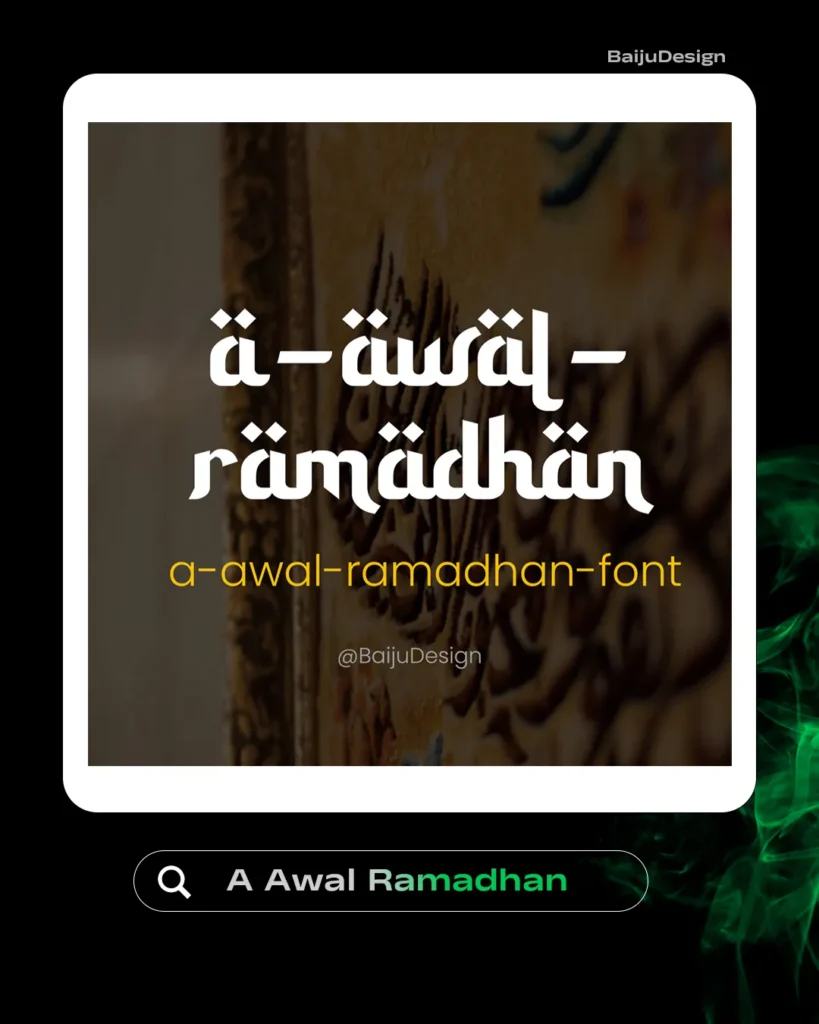
- To help you bring elegance and spirituality to your designs, we’ve curated a list of the TOP 5 Ramadan-themed fonts that perfectly blend tradition and modernity. These fonts are inspired by Arabic calligraphy and festive elements, making them ideal for designing creative and meaningful Ramadan content.
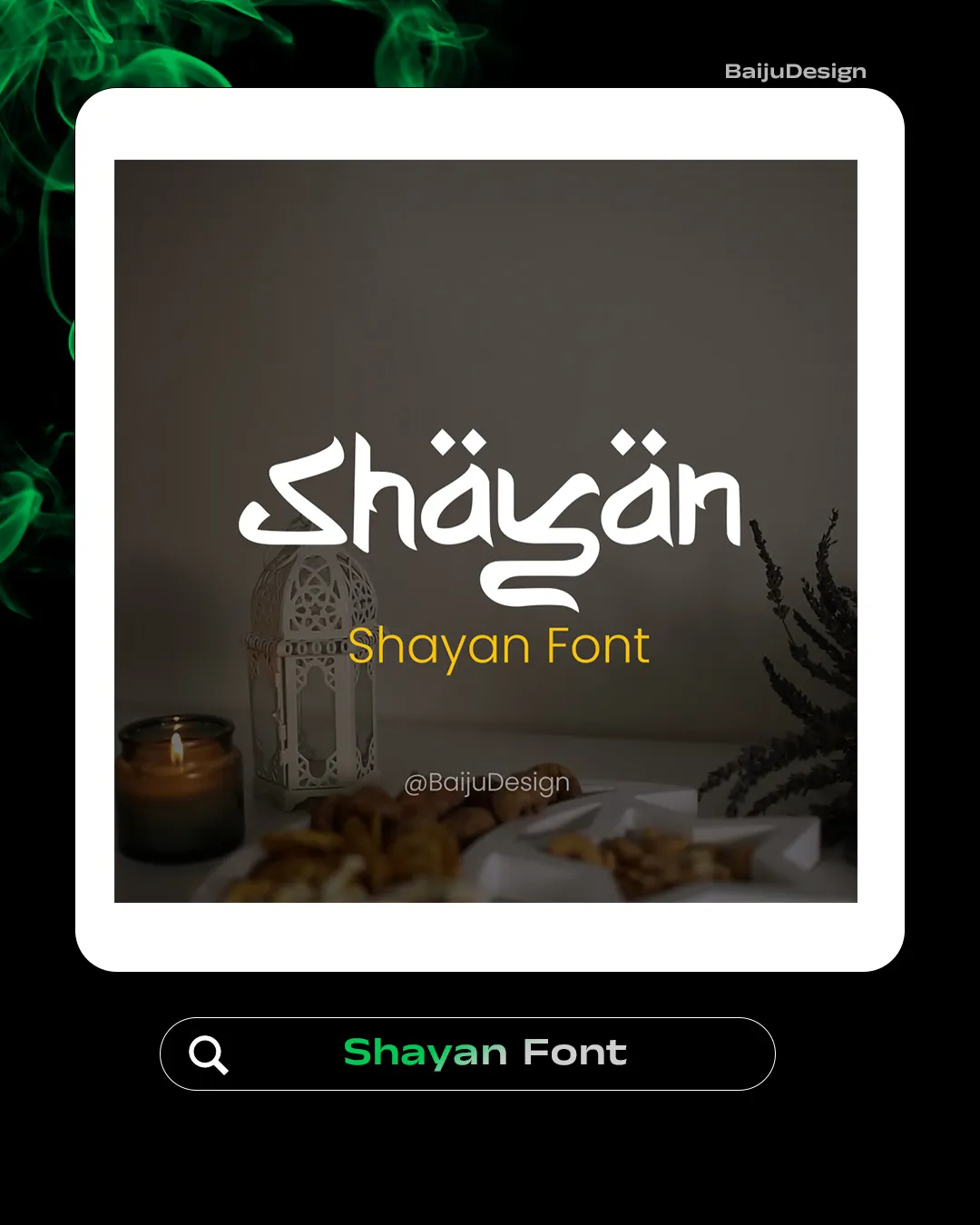
From elegant script styles to bold and decorative lettering, these fonts will help you create visually stunning graphics that reflect the beauty of the holy month. Whether you’re a graphic designer, content creator, or business owner, these fonts will elevate your Ramadan marketing and branding efforts.
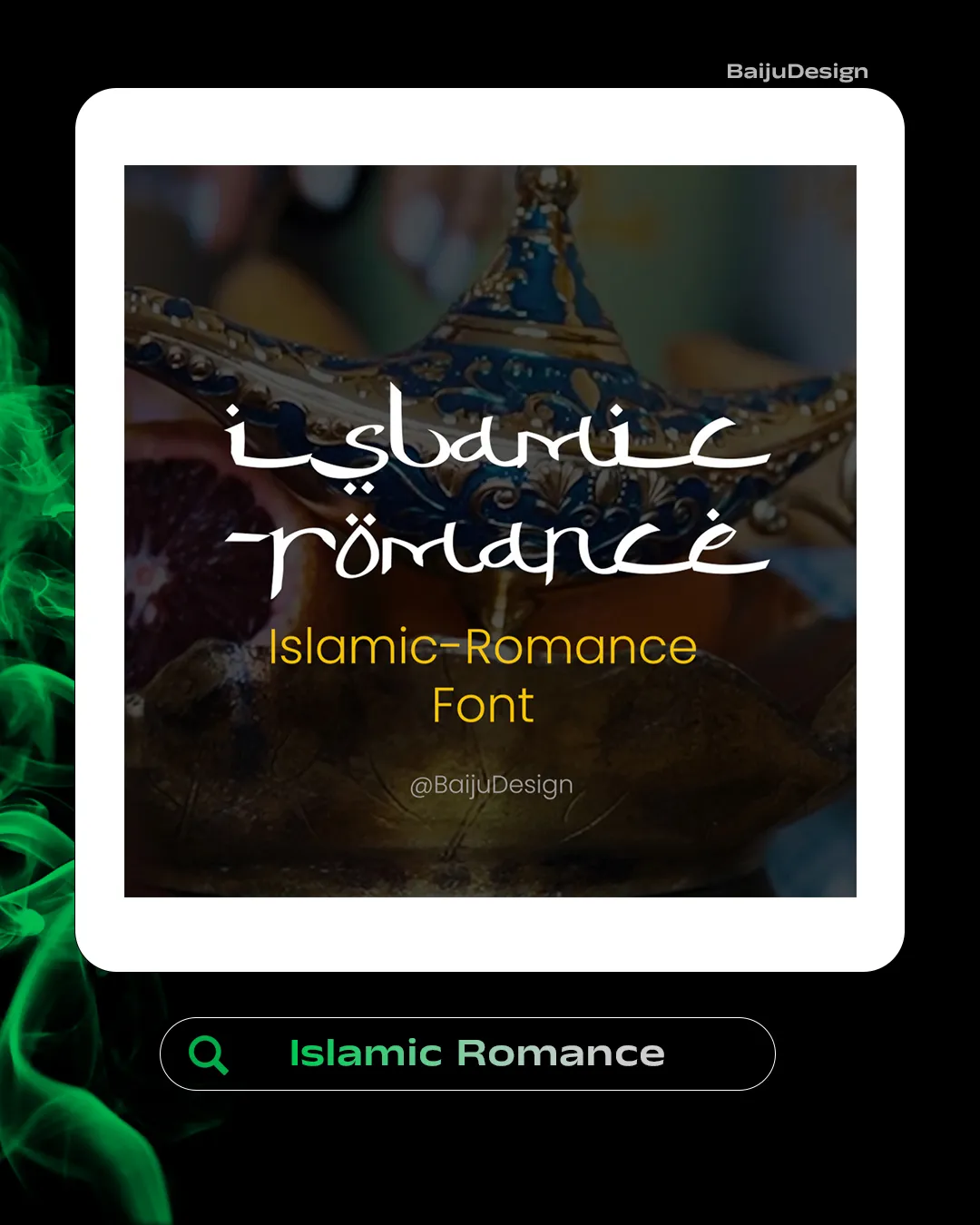
Stay ahead in your design game and make your Ramadan-themed creatives truly unique and captivating. Let’s celebrate this blessed month with beautiful typography and heartfelt designs.